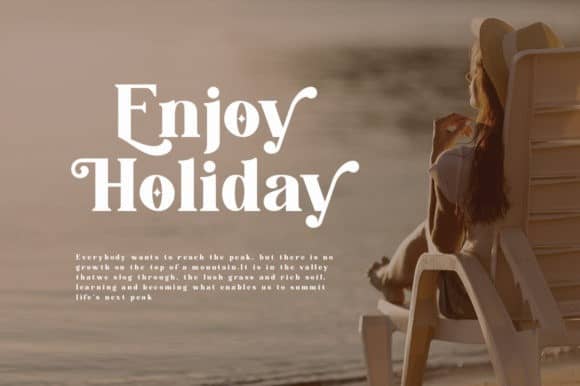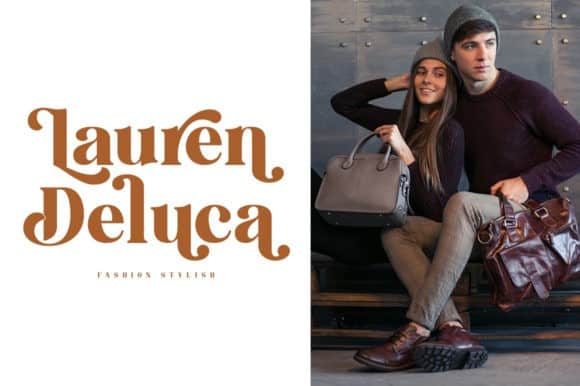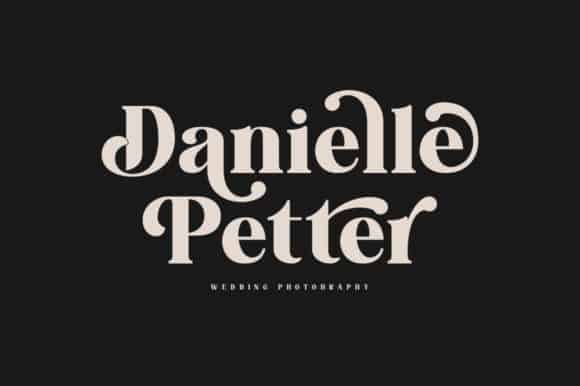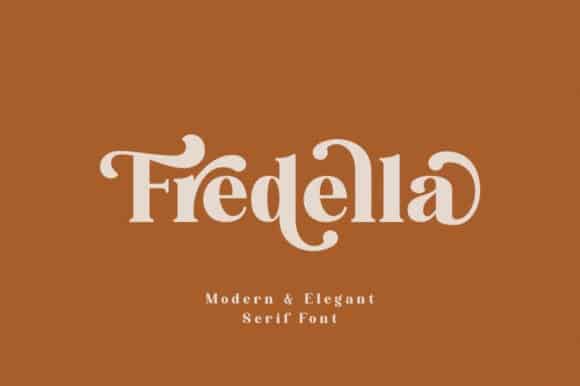
Fredella Serif Font is a Bold elegant modern vintage serif style with upper and lowercase feel nice balanced. It features great alternates and swashes, that will make your designs standout. or logo even more stunning and stand out! This font is PUA encoded which means you can access all of the great glyphs and swashes with ease! It also features a wealth of special features including alternate glyphs and ligatures.